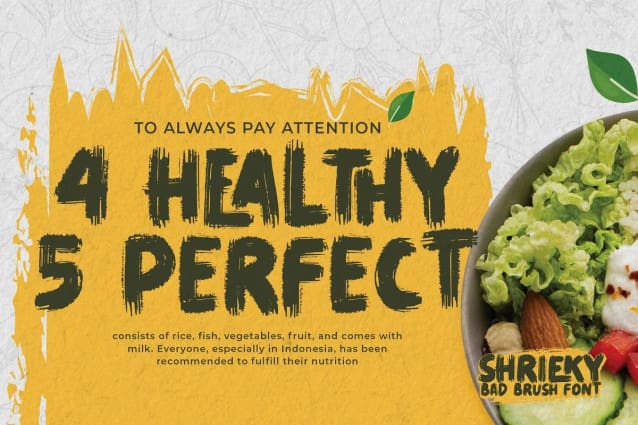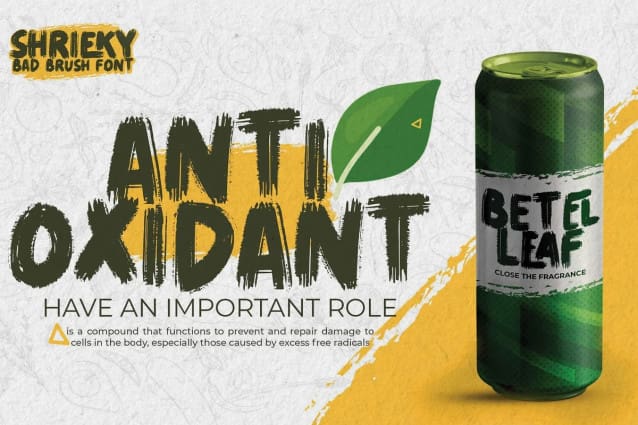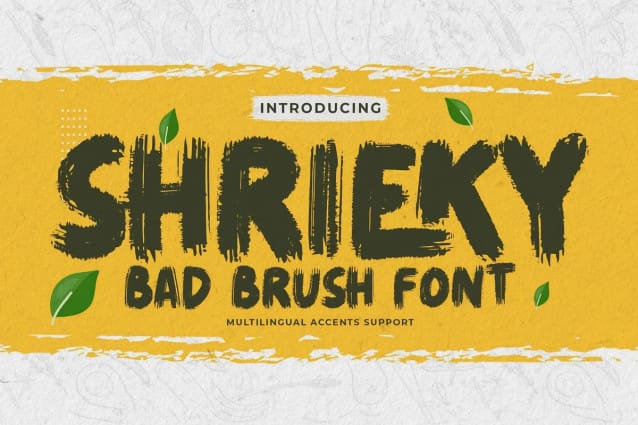
Shrieky Brush Font
Shrieky Brush Font is a Bad Brush Font.This is a Textured Natural Style and classy style with a clear style and dramatic movement.
This font SHRIEKY BRUSH is great for your next creative project such as logos, printed quotes, invitations, cards, product packaging, headers, Logotype, Letterhead, Poster, Design this font is great for your creative projects such as watermark on photography, and perfect for logos & branding, invitation,advertisements,product designs, stationery, wedding designs,label ,product packaging, special events or anything that need handwritting taste. That is has charming, authentic brush and relaxed characteristic more natural look to your text This font is PUA encoded which means you can access all of 16 Ligatures glyphs.